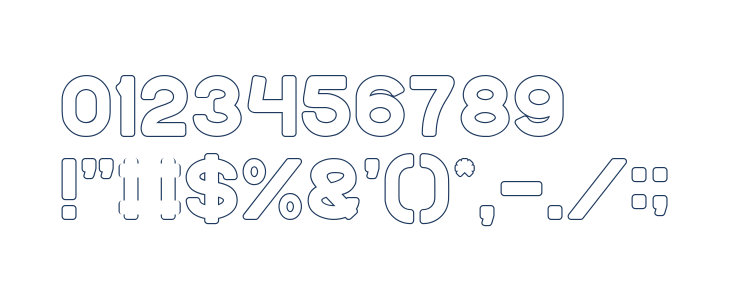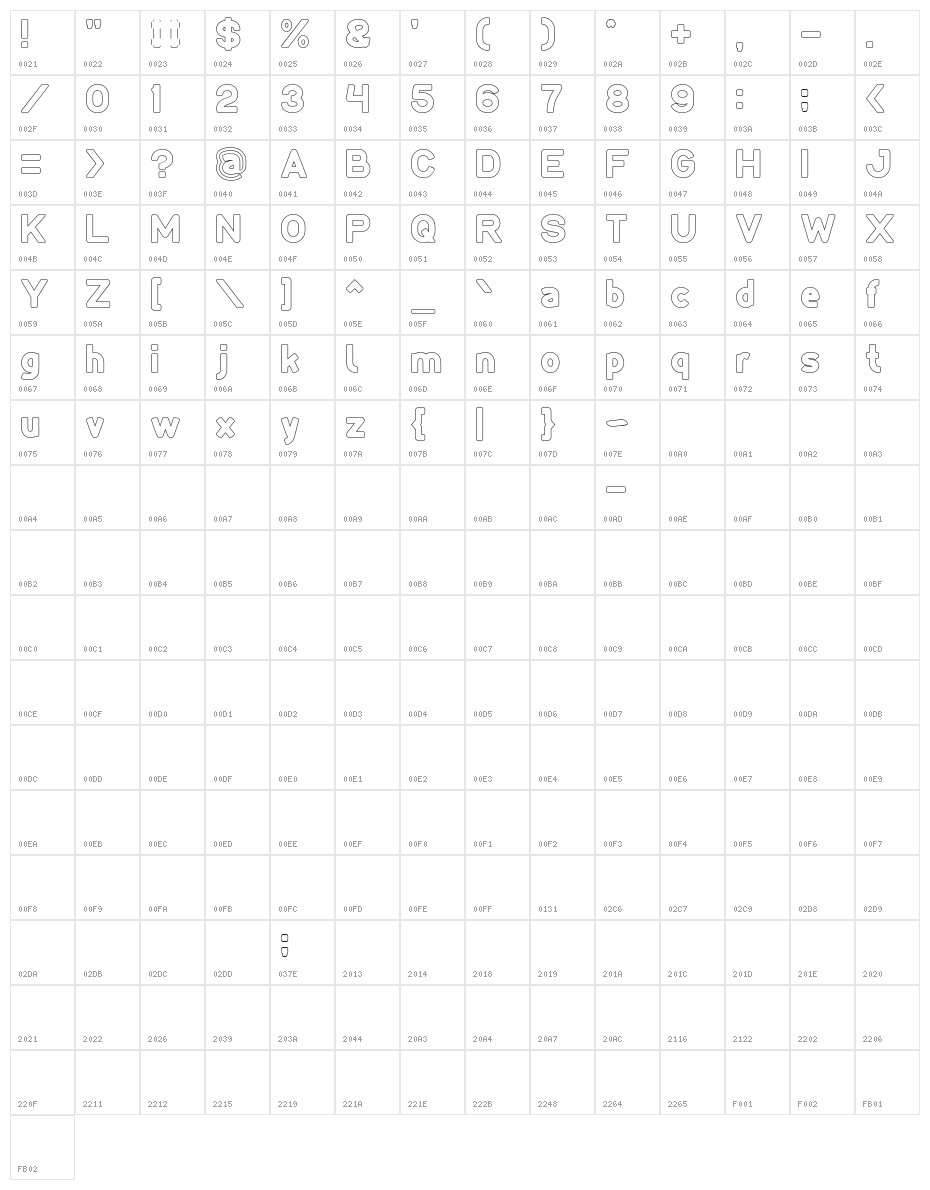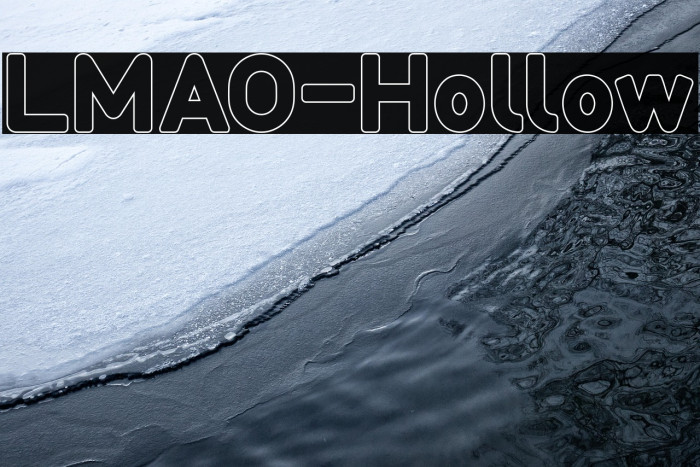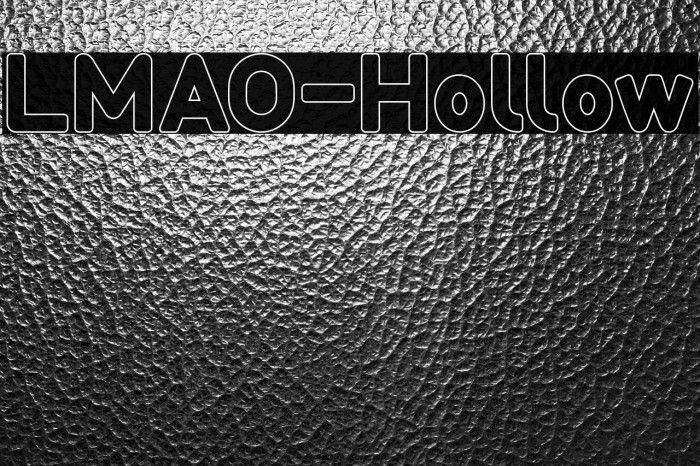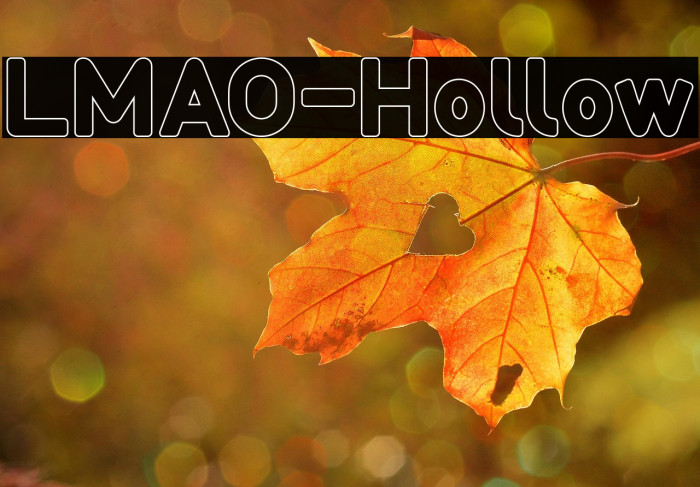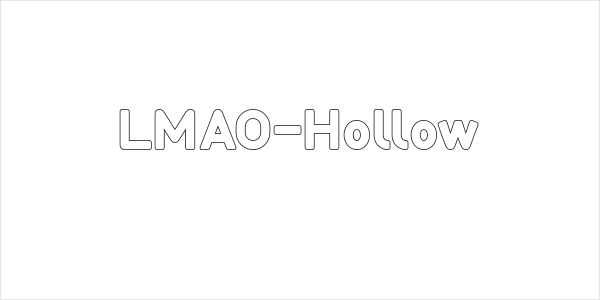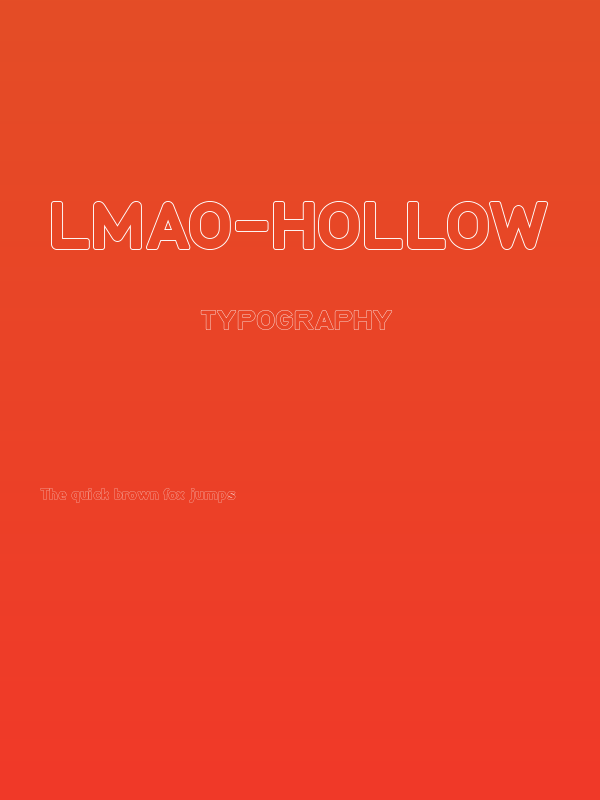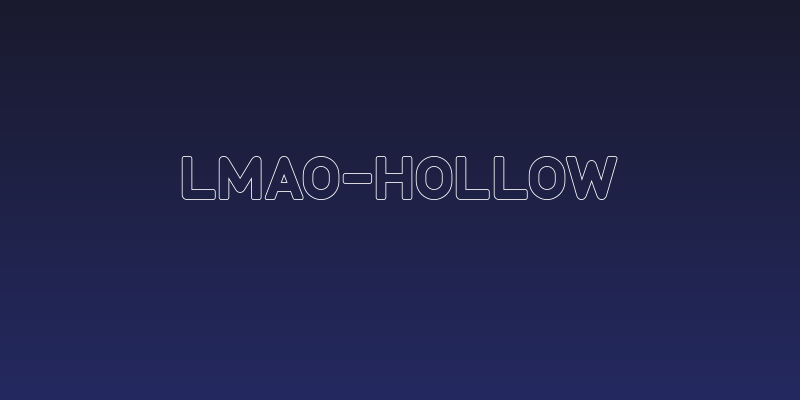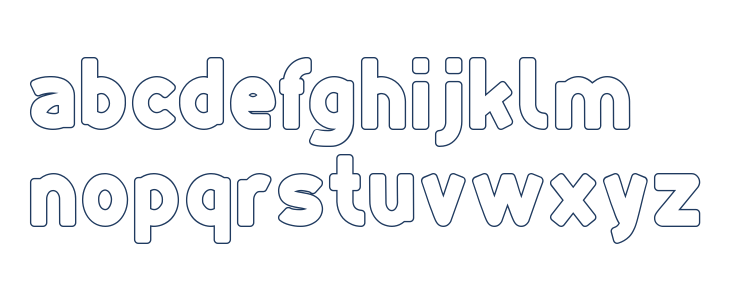
LMAO-Hollow Font
LMAO-Hollow Description
This font features a hollow, outlined design that gives it a bold and modern appearance. The characters are sans-serif, with smooth, rounded edges that create a friendly and approachable look. The uppercase and lowercase letters maintain consistent proportions, ensuring readability. The numbers and special characters follow the same design principles, making them cohesive with the alphabet. The hollow nature of the font allows for creative use of color and background, making it versatile for various design projects.